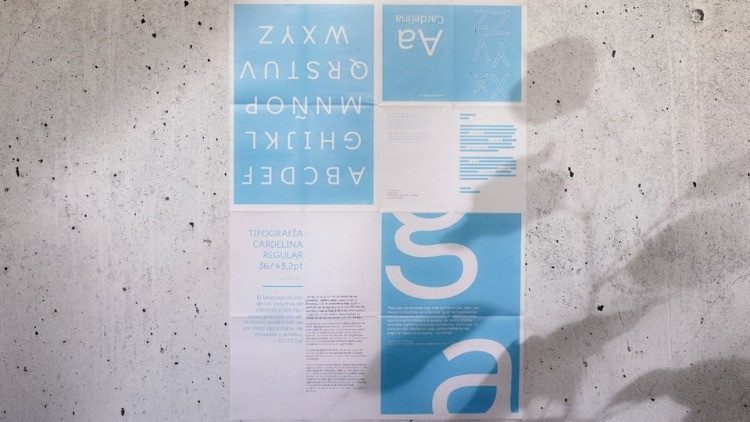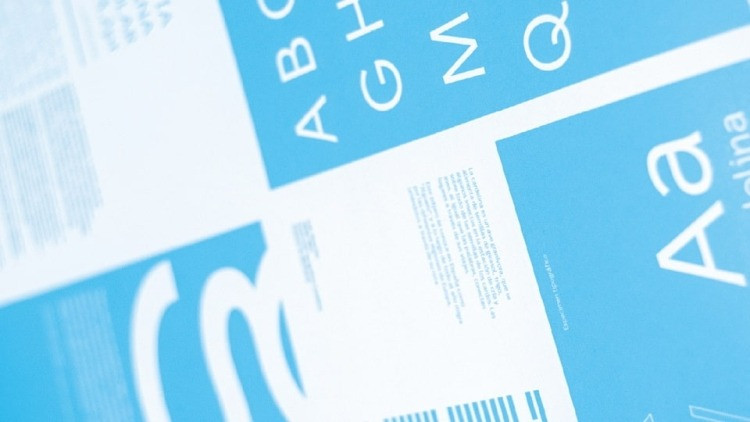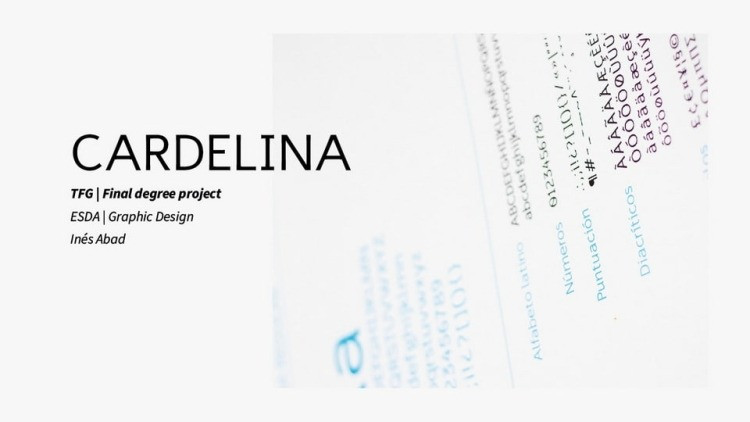
Cardelina Font
Say hello to Cardelina Sans Serif Font, For my final degree project I decided to create a reading typeface, that not only was guided by its aesthetical value, but also its utility in daily life. The aim of Cardelina font is to be extremely readable by people with low vision problems such as astigmatism, myopia, presbyopia…
My personal motivation was to find a way to use design to help people. Reading is something we do every day in our lives, and making it easier will help us have a more relaxed and simple life.